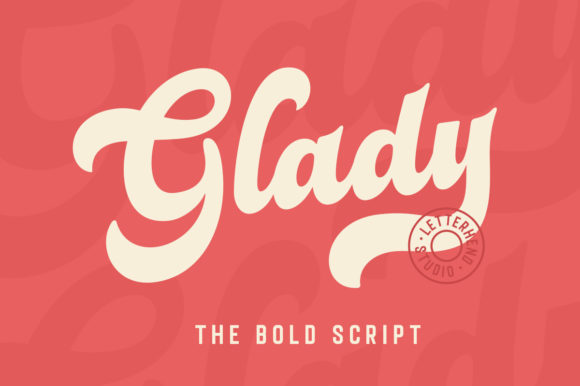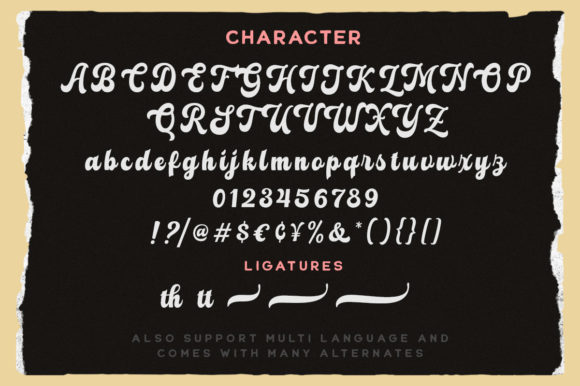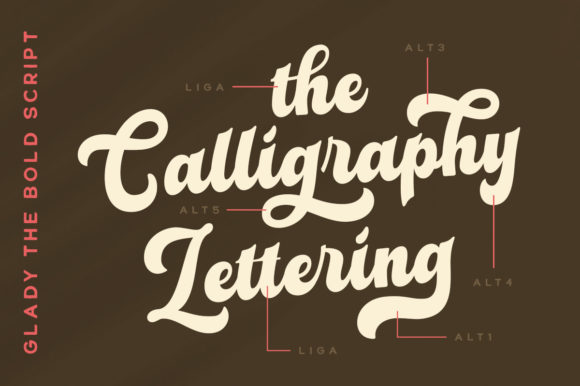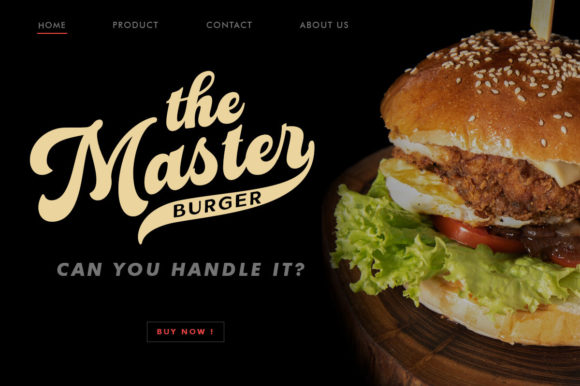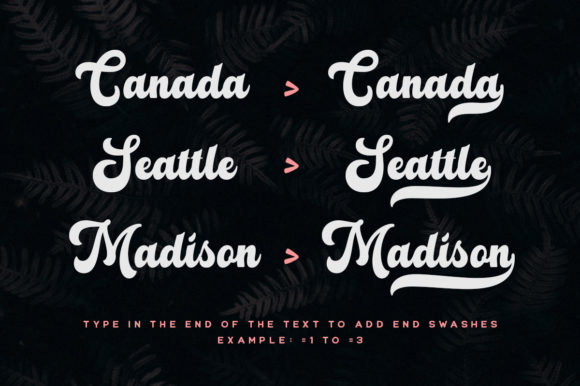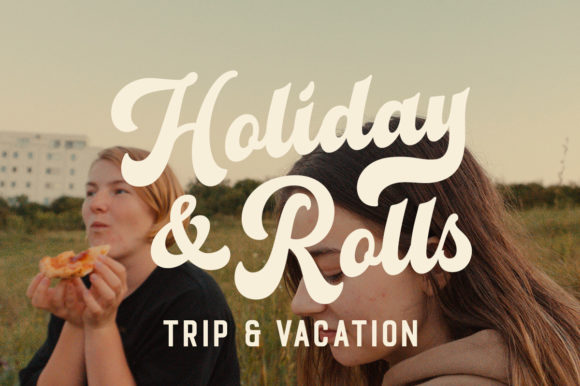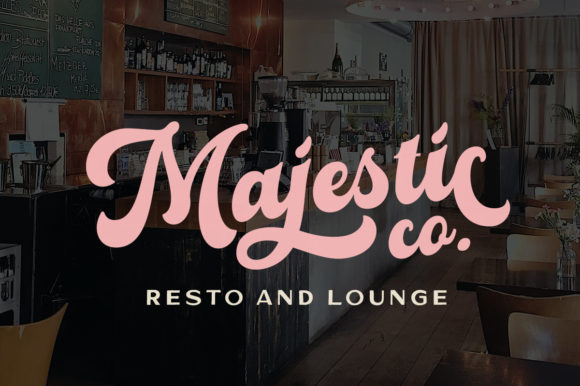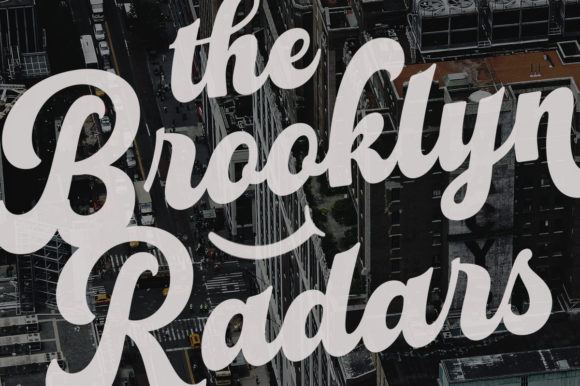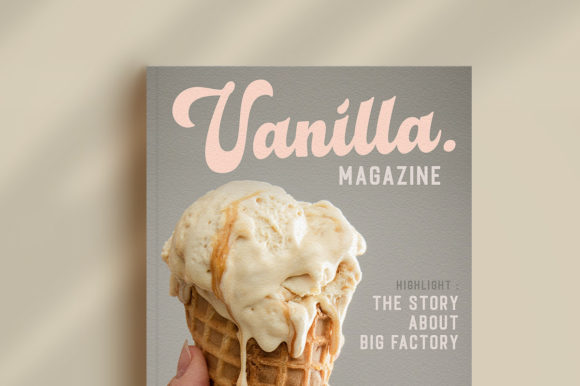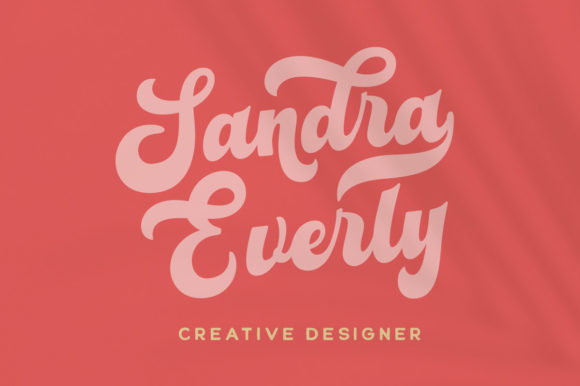
Glady Font
About Glady Font
Glady is a cursive, thick lettered and bold handwritten font, crafted to give your headlines and logotype projects a stylish touch. This font reads as strong, confident, and dynamic and can add tons of nostalgic character to your designs. Glady is PUA encoded which means you can access all of the glyphs and swashes with ease!